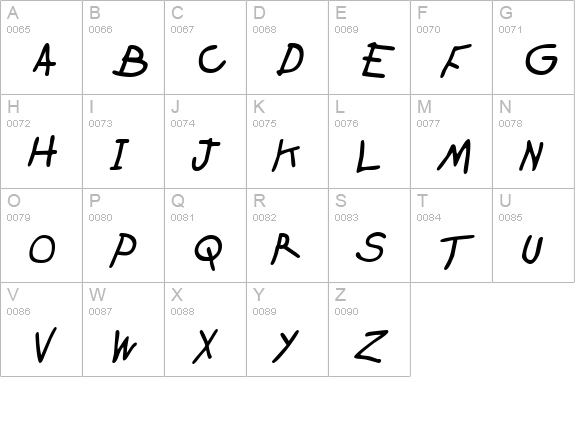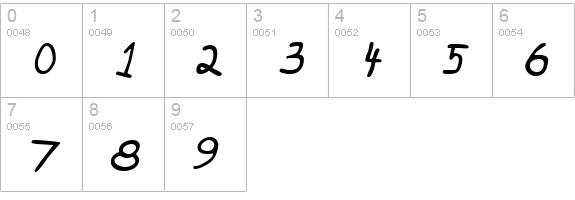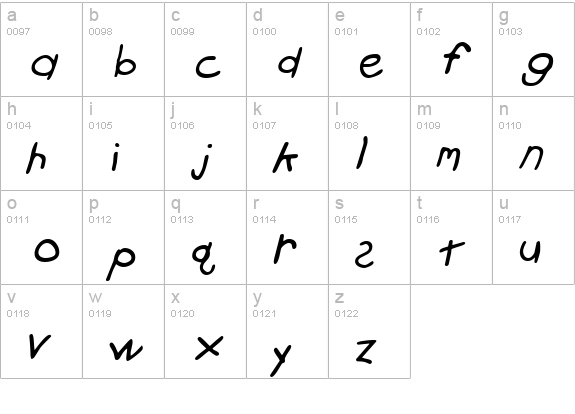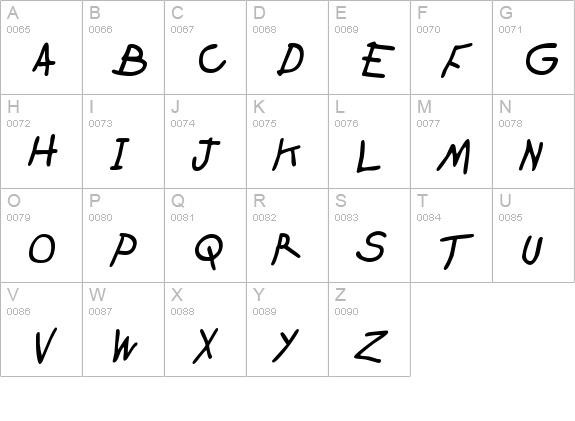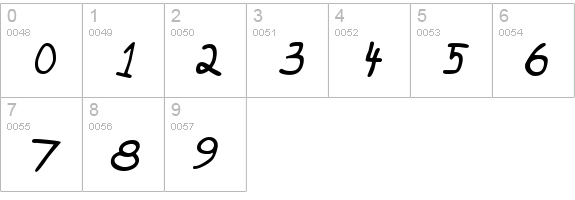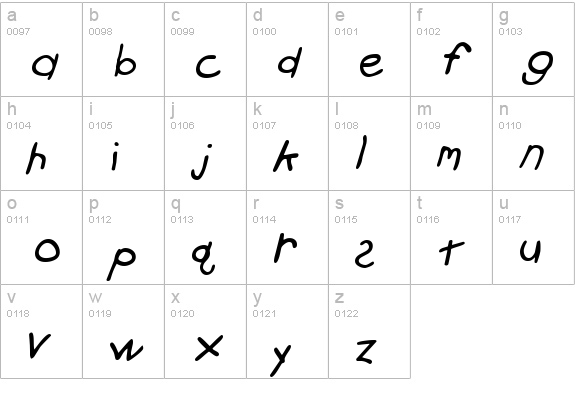
The Crayon Slanted font is a playful and whimsical typeface that exudes creativity and fun. Its hand-drawn appearance gives it a unique charm, making it perfect for designs that require a touch of childlike innocence and imagination. The slanted style adds a dynamic and energetic feel to any project, making it stand out and grab attention. Best of all, the Crayon Slanted font is available for free download at FontsMarket.com. This means you can easily access and use this delightful font in your personal or commercial projects without any cost. Whether you're designing posters, invitations, or social media graphics, the Crayon Slanted font is sure to add a delightful and artistic touch to your creations. Download it today and let your creativity flow with this charming and free font!